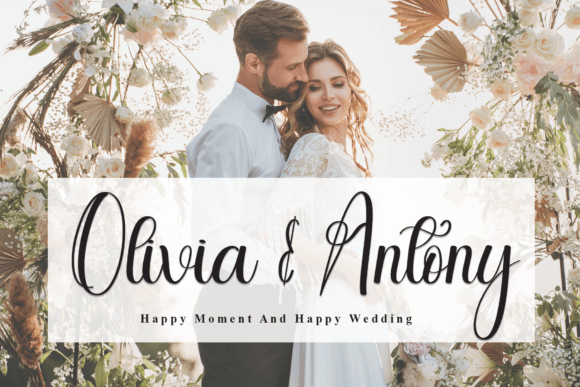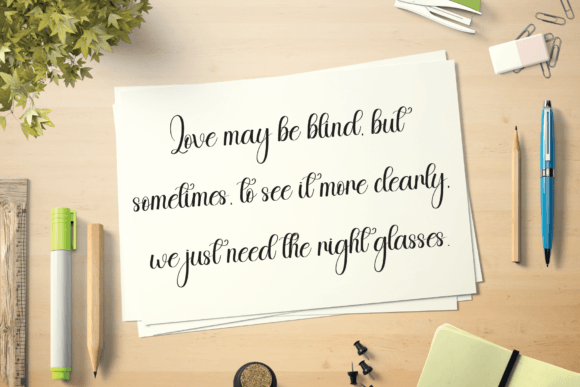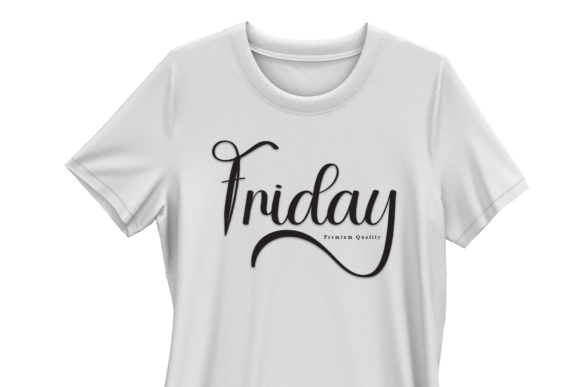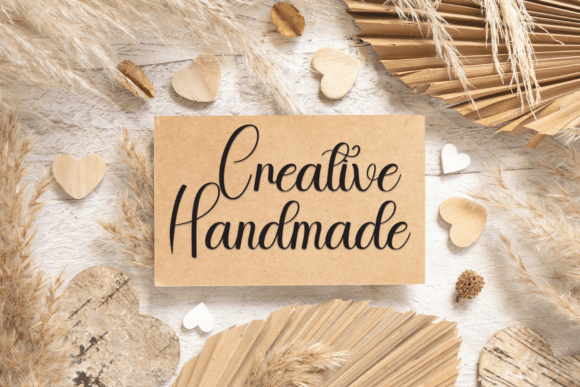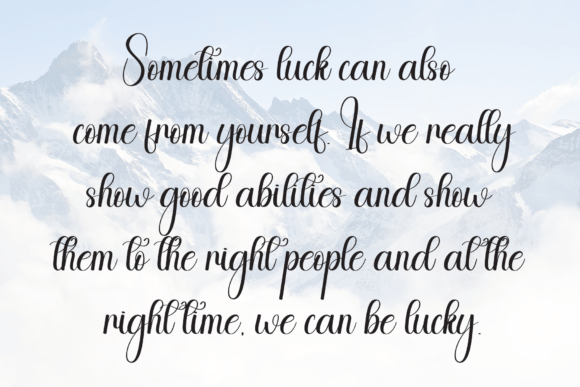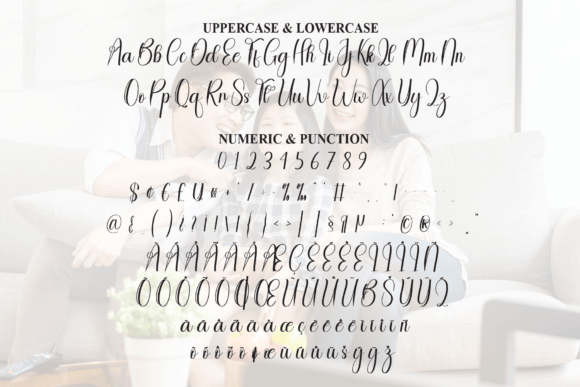
Introducing Family Font: The Sweetly Sincere Handwritten Display Font
Welcome to the world of Family Font, a sweetly sincere and invitingly original handwritten display font that is sure to breathe a breath of fresh air into the realm of typography. This delightfully playful and whimsically charming font is the perfect companion for crafting wedding invitations that stir emotion and resonate with love, greeting cards that evoke smiles, or any design project yearning for a touch of joyful vibrancy.
A Font that Combines Whimsy with Elegance
Imbued with a friendly allure, Family Font masterfully blends whimsy with elegance, elevating your design work to breathtaking new heights. This font is perfect for designers and crafters who want to add a personal touch to their projects, making them stand out from the crowd. Whether you’re creating wedding invitations, greeting cards, or social media graphics, Family Font is sure to bring a smile to your audience’s faces.
The Perfect Font for Wedding Invitations and Greeting Cards
Wedding invitations and greeting cards are special occasions that require a font that can convey emotion and sincerity. Family Font is specifically designed to evoke feelings of love, joy, and celebration, making it the perfect choice for these types of projects. The font’s playful and whimsical nature adds a touch of personality to your designs, making them more relatable and engaging.
Why Choose Family Font?
- Unique and Original: Family Font is a one-of-a-kind handwritten display font that will set your designs apart from the rest.
- Playful and Whimsical: This font adds a touch of joyful vibrancy to any design project, making it perfect for wedding invitations, greeting cards, and social media graphics.
- Elegant and Sophisticated: Despite its playful nature, Family Font is also elegant and sophisticated, making it suitable for a wide range of design projects.
- Easy to Read: The font is clear and easy to read, ensuring that your message is conveyed effectively.
- Versatile: Family Font can be used for a variety of design projects, from digital graphics to print materials.
Tips for Using Family Font in Your Designs
To get the most out of Family Font, here are a few tips to keep in mind:
- Use it for Headlines and Titles: Family Font is perfect for headlines and titles, where you want to make a bold statement.
- Experiment with Colors: The font looks great in a variety of colors, so don’t be afraid to experiment and find the perfect hue for your design.
- Pair it with Other Fonts: Family Font can be paired with other fonts to create a unique and interesting contrast.
- Use it for Digital and Print Materials: The font is versatile and can be used for both digital and print materials.
Family Font is a sweetly sincere and invitingly original handwritten display font that is sure to bring a touch of joyful vibrancy to your design projects. With its playful and whimsical nature, elegant and sophisticated feel, and versatility, this font is perfect for designers and crafters who want to add a personal touch to their work. Whether you’re creating wedding invitations, greeting cards, or social media graphics, Family Font is the perfect companion for crafting designs that stir emotion and resonate with love.
Get Ready to Fall in Love with Family Font
So why wait? Fall in love with Family Font today and start creating designs that are as unique and special as you are. With its friendly allure and masterful blend of whimsy and elegance, this font is sure to become your new favorite companion in the world of typography.